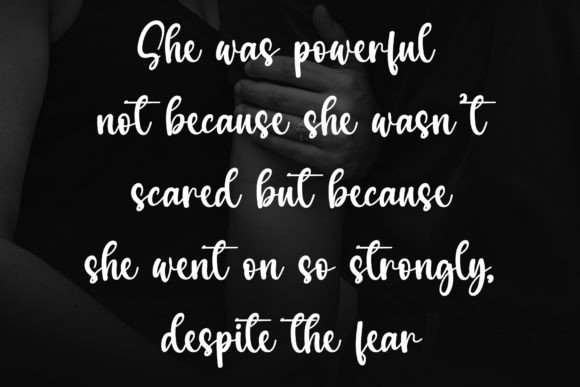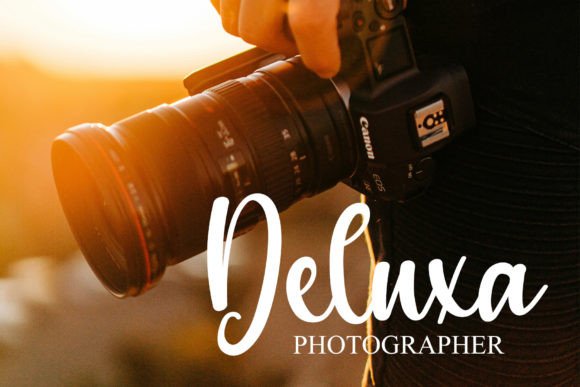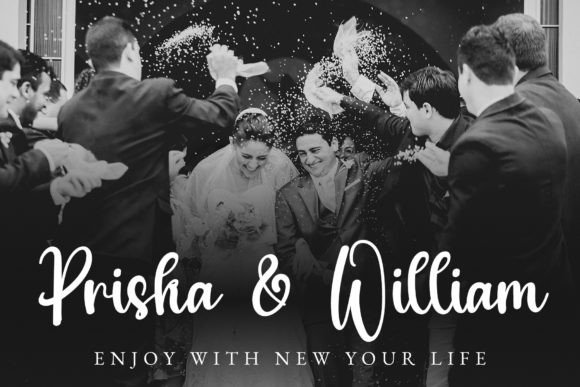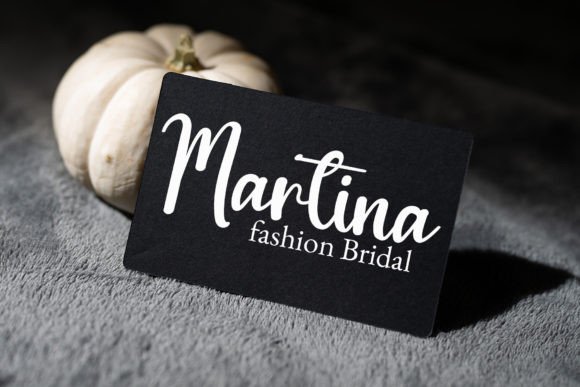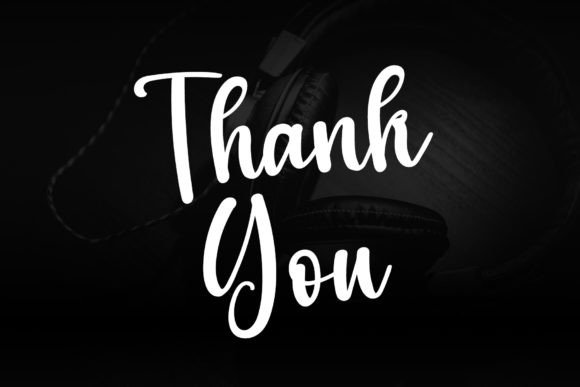
Introduction to Perfectly Surface Font
Perfectly Surface is a stylish and dainty script font.
It is suitable for any projects such as : logos, branding projects, label, photography, watermark, special events, and all your other lovely projects that need a beautiful script taste This font is PUA encoded which means you can access all of the glyphs and swashes with ease.
Perfectly Surface Font offers exceptional quality and versatility, making it a valuable addition to your design toolkit. Whether you’re creating for personal projects or commercial use, Perfectly Surface Font delivers professional results.